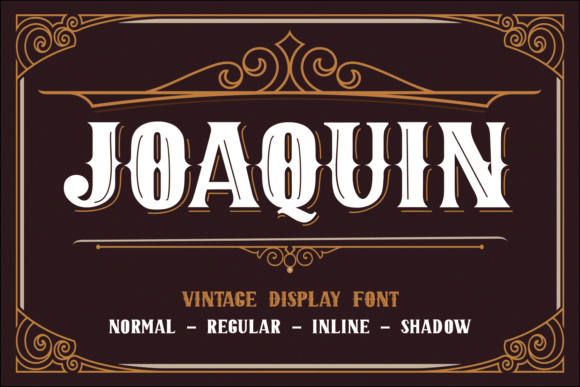
Introducing Joaquin Font, the epitome of vintage elegance and timeless charm! Crafted by Mozatype, this decorative font family is a must-have for anyone seeking to add a touch of nostalgia and sophistication to their designs.
With its exquisite details and intricate curves, Joaquin Font is the ultimate choice for vintage logo design. Whether you're reviving classic aesthetics or creating a brand-new identity, this font will effortlessly capture the essence of retro allure.
Label your products with flair and make them stand out from the crowd with Joaquin Font. Its unique and captivating style will add a sense of authenticity to any packaging design. From artisanal goods to gourmet treats, this font will elevate your product's visual appeal and entice customers to take a closer look.
Transform ordinary posters into extraordinary works of art with the help of Joaquin Font. Its ornate letterforms and vintage-inspired vibes will instantly transport viewers to a bygone era, leaving them mesmerized and captivated. Whether it's a concert, a movie premiere, or a special event, this font will ensure that your message leaves a lasting impression.
Do you want your storefront to exude charm and sophistication? Joaquin Font is the answer. Its timeless elegance will bring a touch of class to your shopfront, making it impossible for passersby to resist exploring what lies within. From boutiques to coffee shops, this font will elevate your brand's image and create a welcoming atmosphere for customers.
Looking to create eye-catching headlines that demand attention? Look no further than Joaquin Font. Its bold and distinctive letterforms will instantly grab the reader's gaze, ensuring that your message is seen and remembered. With this font, your words will leave an indelible mark on any medium, be it print or digital.
Whether you're sending heartfelt greetings or designing personalized stationery, Joaquin Font will add a touch of nostalgia and warmth to your creations. Its delicate curves and intricate details will make your greeting cards truly stand out, evoking emotions and creating lasting memories.
In conclusion, Joaquin Font is not just a font; it's a gateway to a world of vintage charm and captivating design possibilities. With its versatility and timeless appeal, this font is the perfect choice for anyone seeking to create memorable and impactful visuals. So why wait? Download Joaquin Font today and embark on a journey to create stunning designs that will leave a lasting impression.